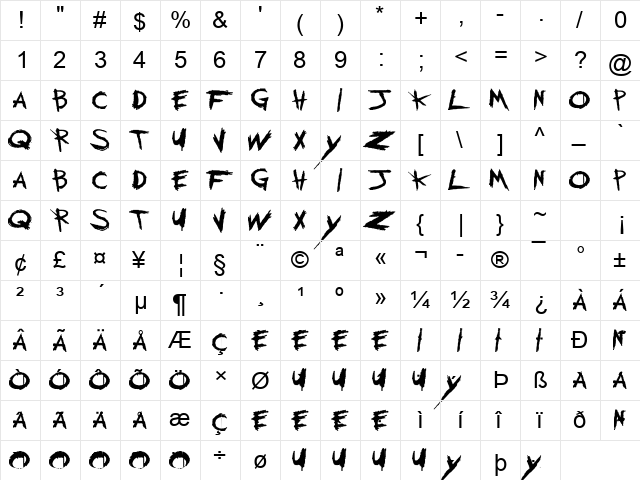
My Chemical Romance Regular
| Designer | Rob Jackson, TyphoonsVault |
Design Context for My Chemical Romance Typeface
My Chemical Romance is a composed and adaptable typeface that performs quietly and consistently across a wide range of design contexts.